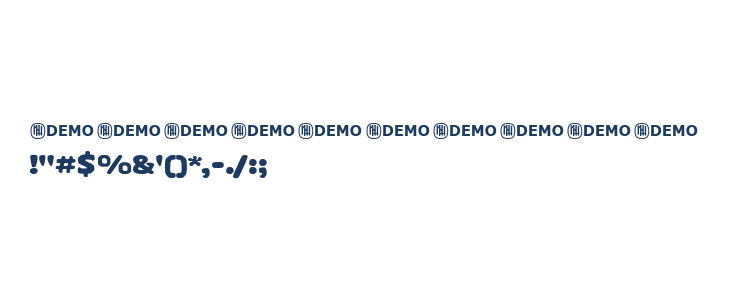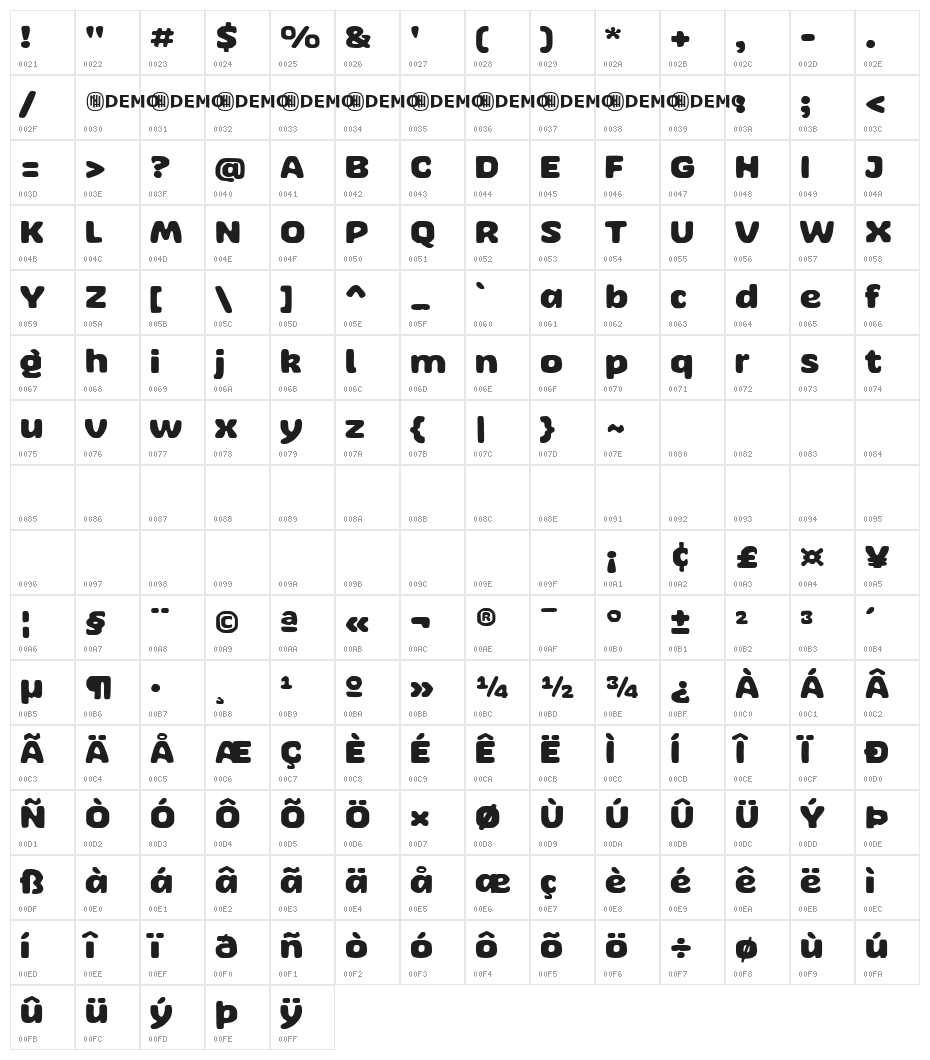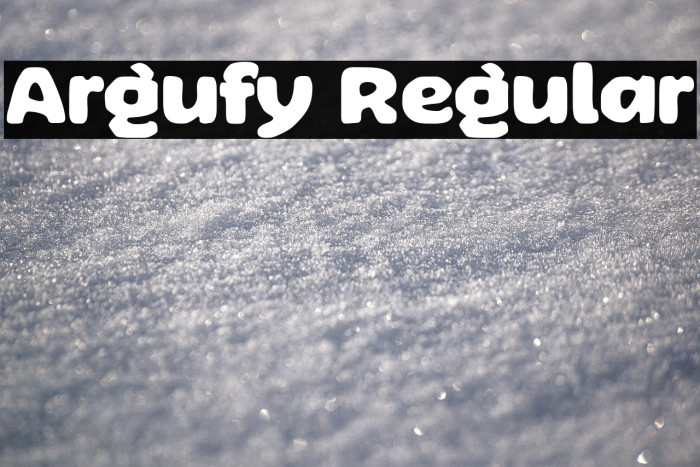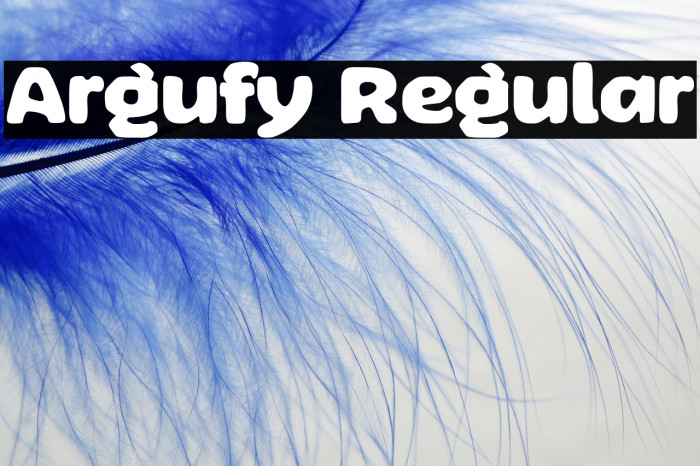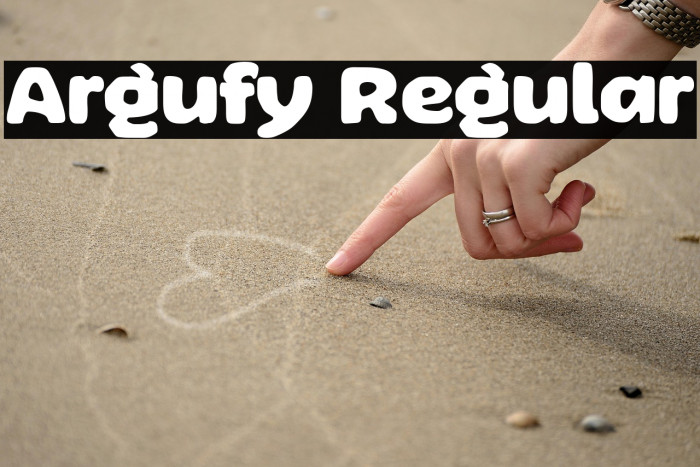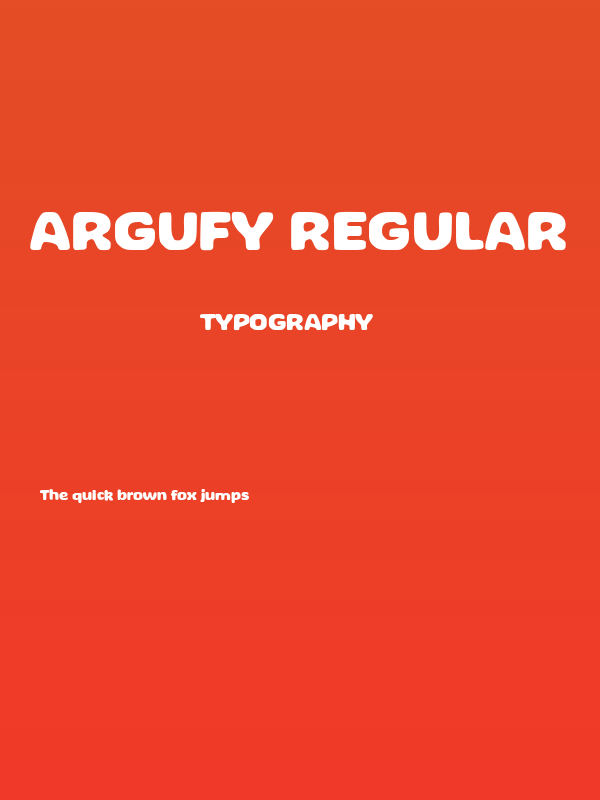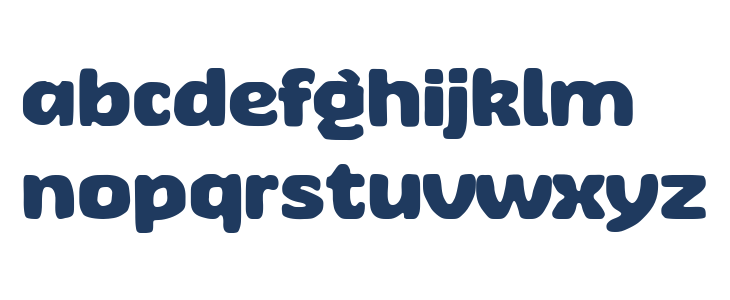
Argufy Regular Font
Argufy Regular Description
This font features a bold and playful design with rounded edges and a chunky appearance. The characters are uniformly thick, giving it a strong presence suitable for attention-grabbing designs. Its whimsical style is reminiscent of retro or cartoon aesthetics, making it ideal for projects that require a fun and approachable look. The uppercase and lowercase letters maintain consistent proportions, while the numbers and special characters are designed to match the overall playful theme. This font is perfect for creating a lively and engaging visual impact.
| Overall Style | Playful, Retro |
| Proposed Projects | Great for children's books, playful branding, posters, and social media graphics. |